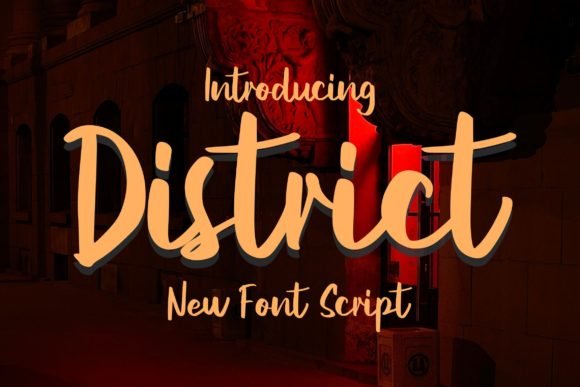
Unlock the Power of Elegance with District Script Font
You know that moment when you’re brainstorming ideas for a project, and suddenly, a spark of creativity ignites? For many designers, it’s the perfect combination of style and sophistication that sets their imagination ablaze. This is exactly what the District Script Font offers – a chic, trendy script font that exudes confidence and versatility.
As a designer, you’re constantly on the lookout for fonts that can elevate your work and leave a lasting impression. District Script Font is more than just a stylish addition to your toolkit; it’s a game-changer. Its stylish alternates and ligatures make it the perfect match for any project, from elegant invitations to bold branding materials.
With District Script Font, you’ll discover a world of creative possibilities. Whether you’re a seasoned pro or just starting out, this versatile font will help you unlock your full potential and bring your ideas to life.
District Script Font Key Features
- Unique Characteristics: The font features a unique, handwritten style with a mix of brush and marker strokes, giving it a distinctive and eye-catching appearance.
Review of District Script Font
I recently had the chance to work with the District Script Font, and I must say it’s a unique addition to any design project. ✨ One of the things that stands out is its elegant, handwritten feel. It’s perfect for creating a sense of sophistication and refinement.
Here are some specific things that work well:
- ✨ Excellent for invitations, wedding stationery, and other special occasions
- ✨ The bold and regular weights offer a nice contrast and flexibility
- ✨ The font is highly legible, making it easy to read even at smaller sizes
- ⚠️ The font may not be suitable for body text, as it can be quite dense and overwhelming
- ⚠️ Some users may find the font too ornate or fussy
- ⚠️ The font doesn’t include a wide range of language support
Overall, I’d say the District Script Font is a solid choice for designers who want to add a touch of elegance to their work. While it may not be suitable for every project, it’s definitely worth considering for special occasions or when you want to make a statement.
Tips for Getting the Most Out of the District Script Font
For the best results, use the District Script Font in combination with other fonts to create a visually appealing contrast. Experiment with different font sizes, colors, and styles to add emphasis and create hierarchy in your design.
The District Script Font is ideal for creating eye-catching headlines, titles, and logos. It’s also suitable for use in branding materials, such as business cards and letterheads, where a unique and creative touch is desired.